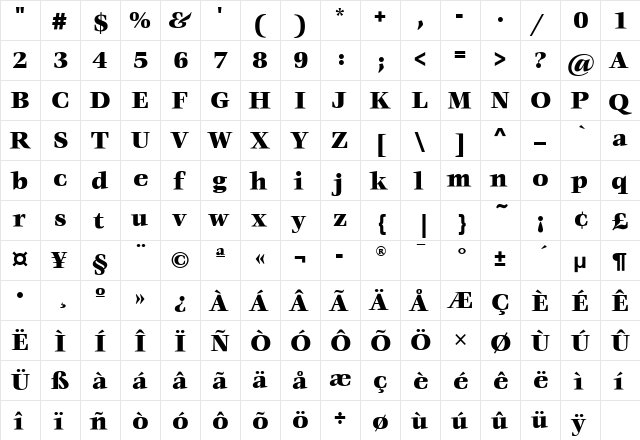
VeljovicMdITC Black Font Preview
VeljovicMdITC Black
Design Context for VeljovicMdITC Typeface
VeljovicMdITC is a composed and adaptable typeface that performs quietly and consistently across a wide range of design contexts.